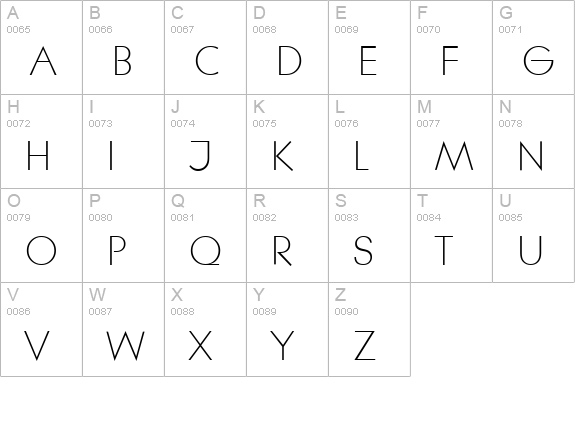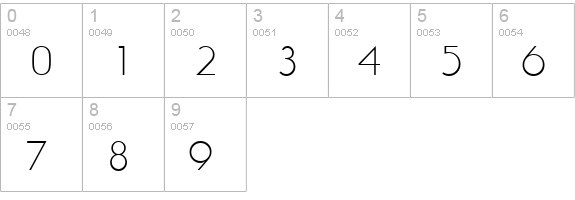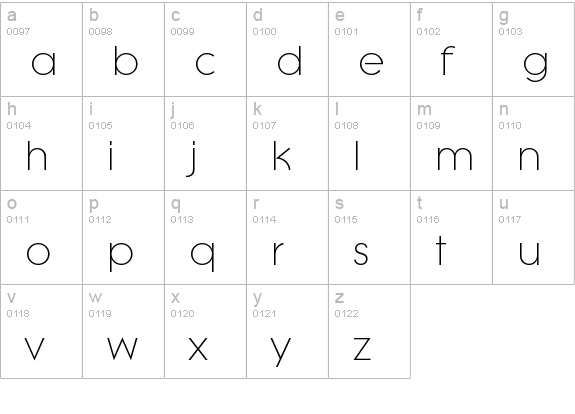
LiteraSerial-Light-Regular is a refined, elegant variant in the LiteraSerial typeface family \xE2\x80\x94 well suited to elegant body text, refined sub-headings, and luxury branding.
The LiteraSerial-Light-Regular font is a modern and versatile typeface that exudes elegance and sophistication. With its clean lines and balanced proportions, this font is perfect for a wide range of design projects, from branding and advertising to web design and print materials. Its light weight gives it a delicate and airy appearance, making it ideal for conveying a sense of refinement and style. Best of all, the LiteraSerial-Light-Regular font is available for free download at FontsMarket.com. This means you can easily access and use this high-quality font in your projects without any cost. Whether you're a designer, a student, or just someone looking to enhance their creations with a beautiful typeface, the LiteraSerial-Light-Regular font is a fantastic choice that won't break the bank. Download it today and elevate your designs with its timeless elegance and charm.